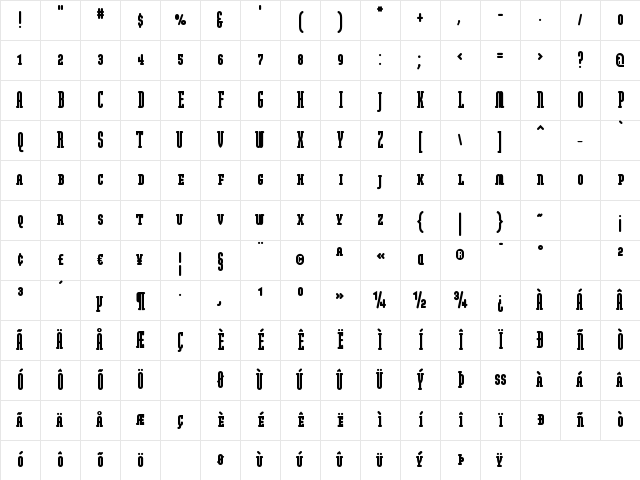
ModulaRoundSerifUltraSC Regular Free Font
ModulaRoundSerifUltraSC Regular
Designer: Zuzana Licko
Complete ModulaRoundSerifUltraSC Regular glyph index. Displaying only characters natively supported by ModulaRoundSerifUltraSC Regular font.
Design Context for ModulaRoundSerifUltraSC
ModulaRoundSerifUltraSC carries the refined structure of traditional serif typography, with bracketed terminals and considered proportions that communicate credibility and craft.